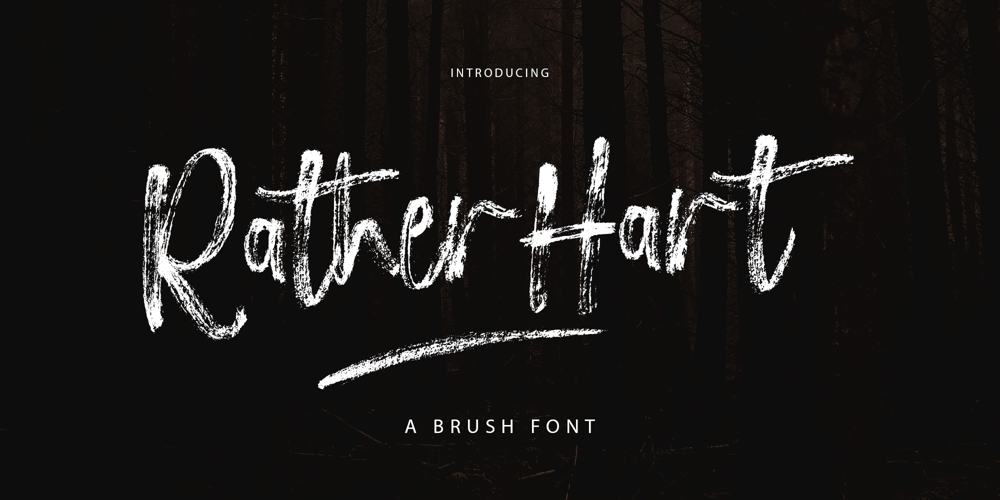
Rather Hart Brush
Rather Hart Brush font
Rather Hart Brush Font Family was designed by Alam Syahril and published by Realtype. Rather Hart Brush contains 1 styles and family package options. Rather Hart Brush is a handmade font written with a real brush pen. Written with quick movements using a brush pen. It’s Handwritten with quick dry strokes. Suitable for those who need a font with real textures.